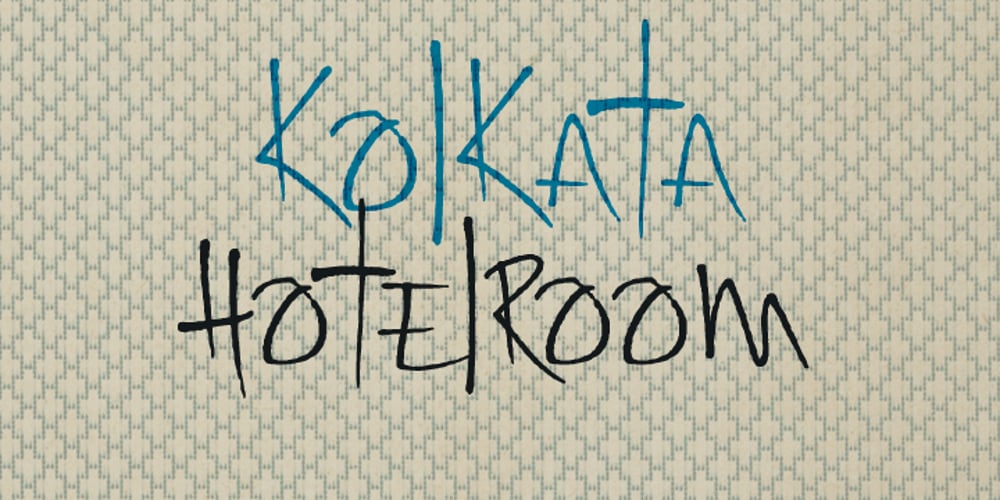
Kolkata Hotelroom Font Family was designed by David Kerkhoff and published by Hanoded. Kolkata Hotelroom contains 2 styles and family package options. Hotel rooms in Kolkata don’t top the list of ‘luxurious habitations’. They are dingy, fly-ridden, dirty and noisy. But if you look really hard, you will find traces of long gone grandeur. This font is all of the above and more: it is sloppy and messy, it spikes and sags, but it does give your designs that extra oomph you are looking for.